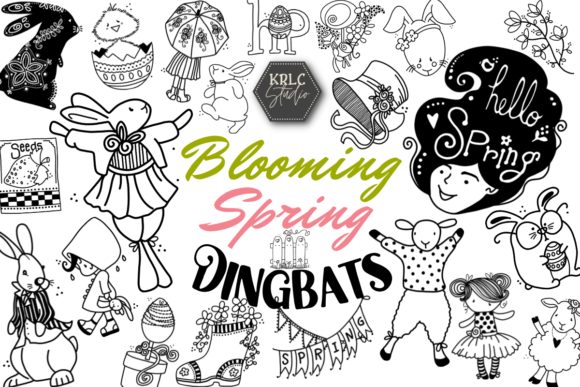
Welcome to the world of Blooming Spring - a font that will bring a touch of springtime joy to your creative projects. Designed by KRLC Studio, this enchanting dingbats font is a treasure trove of blossoming cuteness, perfect for adding a whimsical touch to your Easter and springtime creations.
With Blooming Spring, you'll be able to infuse your cards, programs, posters, and scrapbook pages with the magic of the season. Imagine your Easter cards adorned with delicate floral motifs, your springtime posters blooming with cheerful blossoms, and your scrapbook pages bursting with the vibrant colors of nature's awakening.
Blooming Spring is more than just a font; it's an invitation to embrace the beauty of the season and let your creativity flourish. Its intricate designs and playful charm will capture the hearts of those who receive your creations, spreading joy and happiness wherever it goes.
But Blooming Spring's appeal is not limited to Easter and springtime projects. Its versatility extends to a wide range of creative endeavors, from whimsical invitations and eye-catching social media posts to unique logos and branding elements. Let Blooming Spring be your creative companion, adding a touch of springtime magic to all your designs.